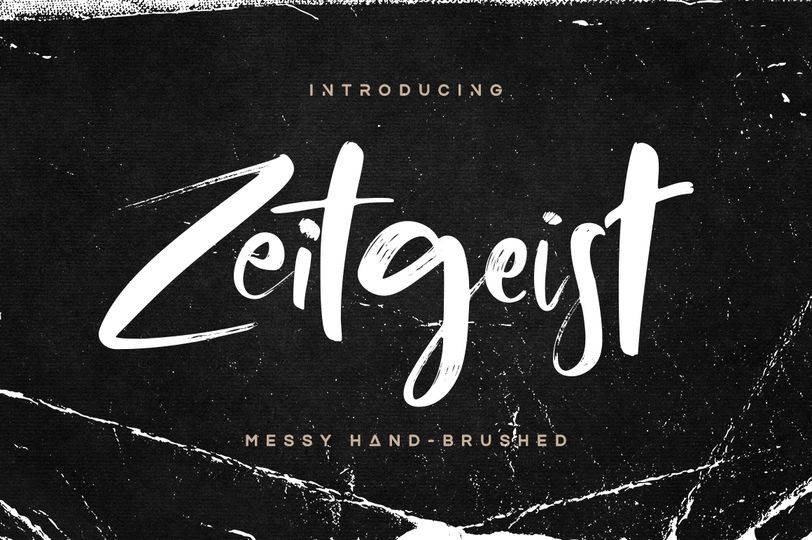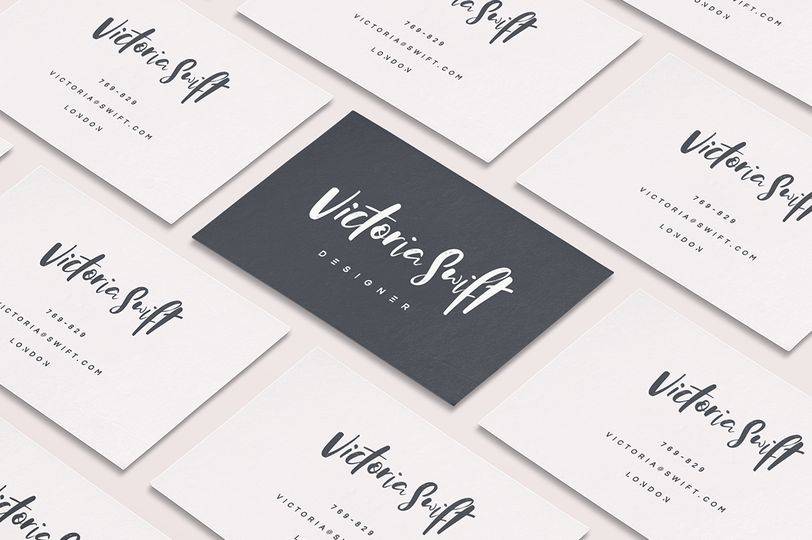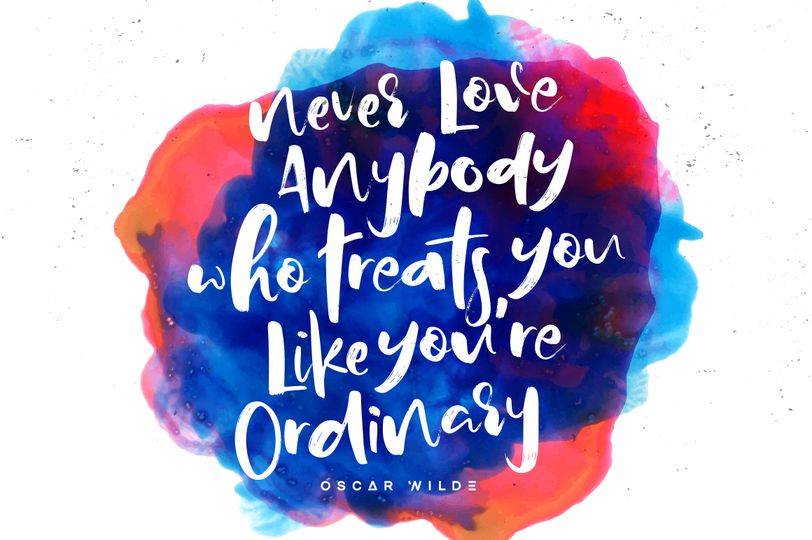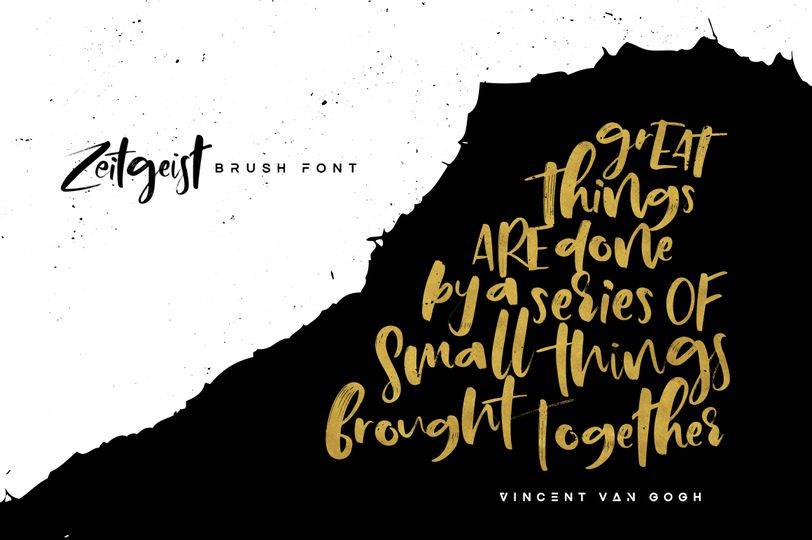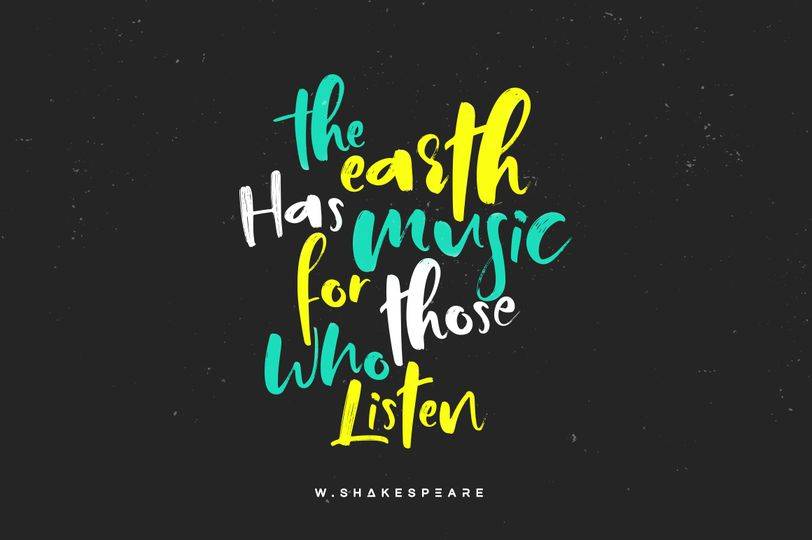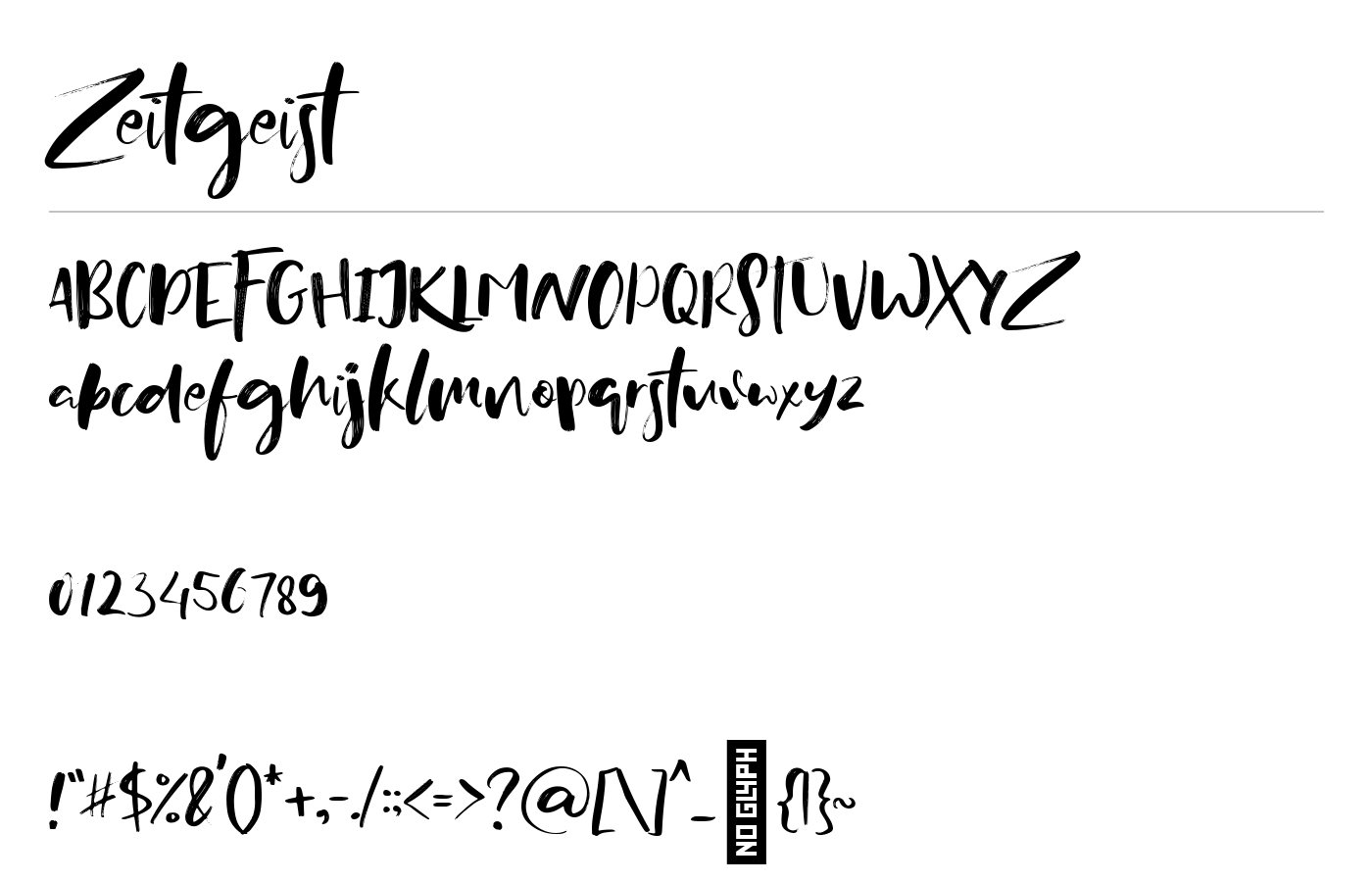
Zeitgeist is a bold, handwritten script font with a lively, brush-stroke texture that brings a fresh, artistic flair to designs. Its casual yet dynamic style makes it perfect for creative branding, posters, and social media where an energetic, personal touch is desired. This font works well for projects aiming to convey authenticity and vibrancy.
Zeitgeist Font
About Zeitgeist Font
| Designer | Tulus Driyo |